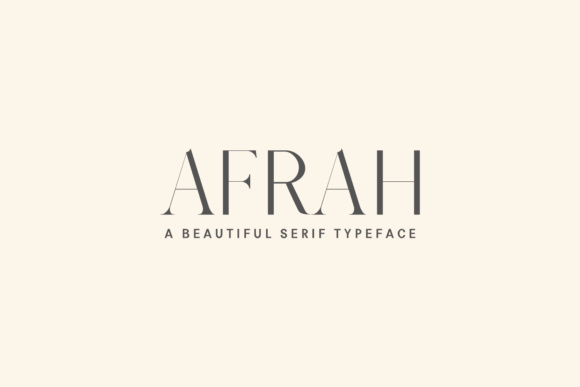
Introducing Afrah Family Font, the exquisite serif font family that will elevate your creative projects to new heights. This versatile font, meticulously crafted by Creative Tacos, comes in five distinct weights: regular, bold, light, thin, and round. Each weight exudes its own unique charm, allowing you to express your creativity in a multitude of ways.
Whether you're designing captivating headlines, creating striking logos, or crafting sophisticated packaging, Afrah Family Font is the perfect choice. Its elegant curves and timeless style add a touch of sophistication to any project. The regular weight is ideal for body text, providing excellent readability and enhancing the overall user experience.
For those seeking a bolder statement, the bold weight of Afrah Family Font commands attention. It's perfect for making headlines stand out, creating impactful branding, and conveying messages with unwavering confidence. On the other hand, the light and thin weights bring a delicate touch to your designs. They're perfect for adding a subtle touch of elegance to smaller text sizes or creating airy and spacious layouts.
The round weight of Afrah Family Font is a true gem. Its playful and whimsical curves add a touch of fun and personality to your designs. It's perfect for creating eye-catching logos, designing children's books, or adding a playful touch to invitations and greeting cards.
Afrah Family Font is not just a collection of fonts; it's an invitation to unleash your creativity. With its diverse range of weights and styles, this font family empowers you to express your unique vision and bring your ideas to life. Its timeless beauty and versatility make it a must-have for any designer's toolkit. Embrace the creative possibilities and elevate your designs with Afrah Family Font today!